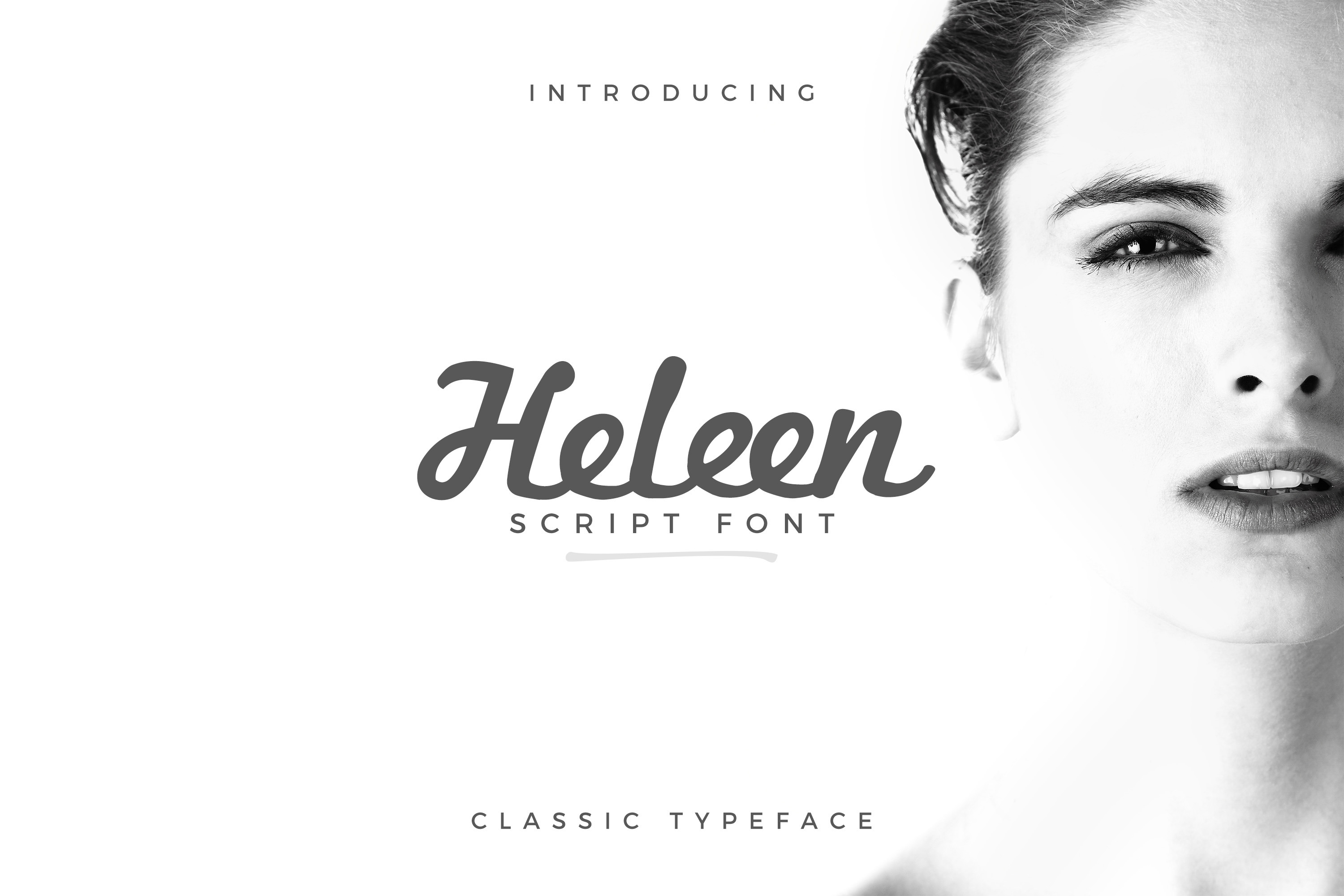
Heleen Script Font
Heleen - An Elegant Script Font
Heleen is best suited for wedding invitations, logos, branding, social media and more!
- Uppercase Character
- Lowercase Character
- Collection of Swashes
Pairs perfectly with any modern Sans-Serif font, such as Montserrat (used in the previews)